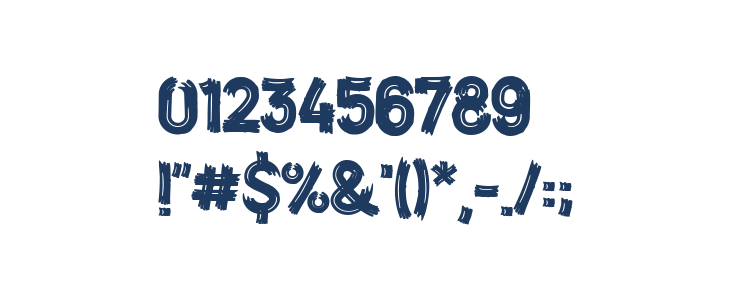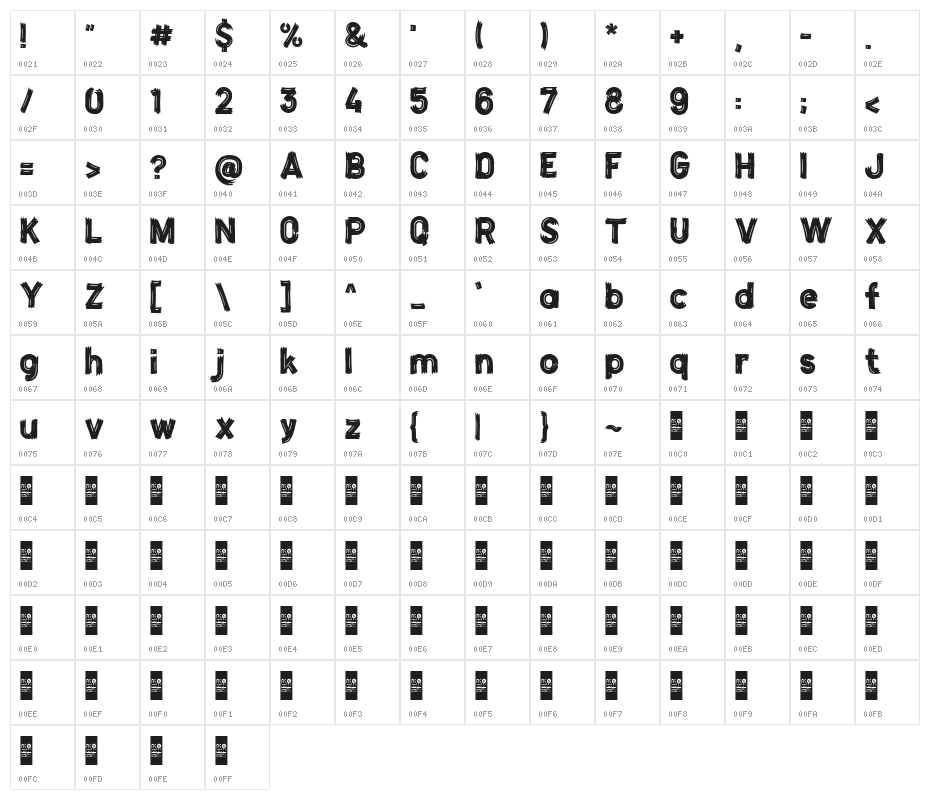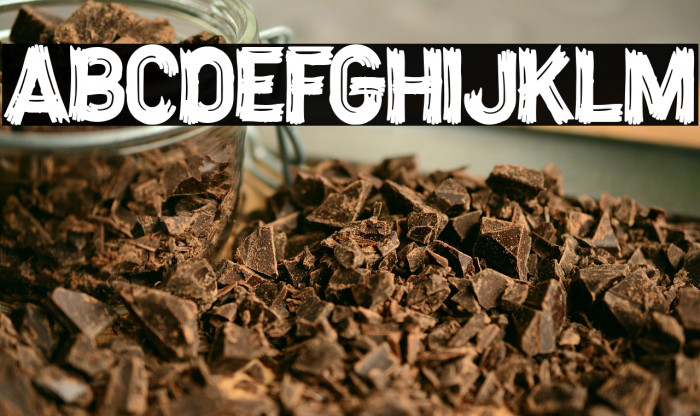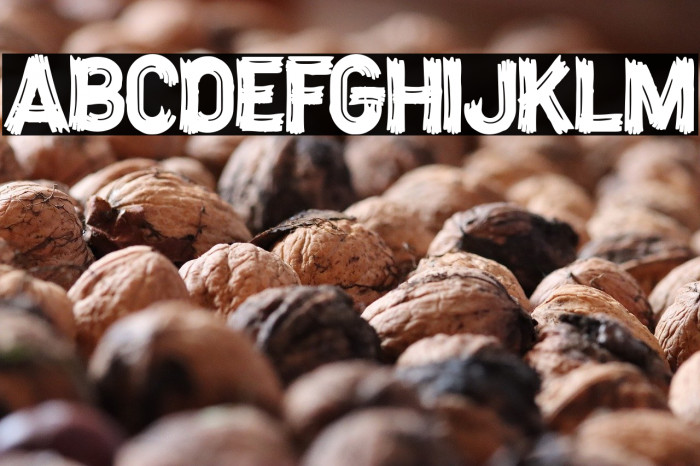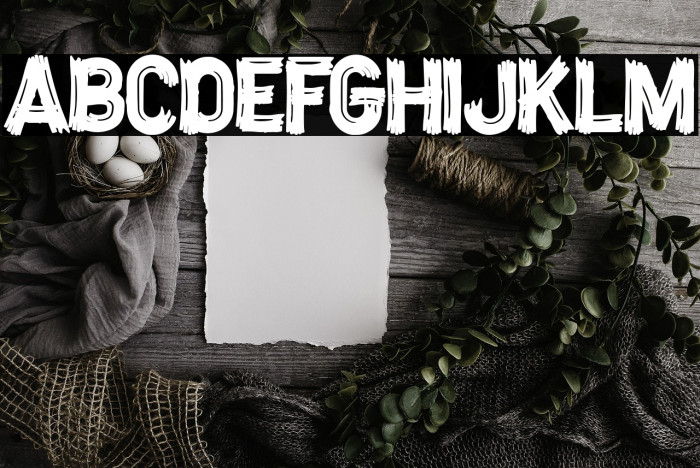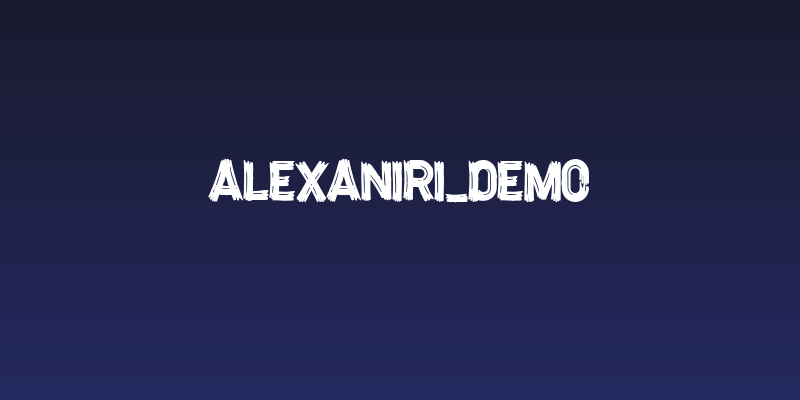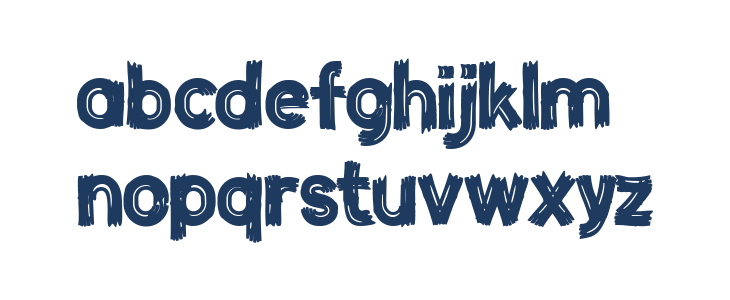
Alexaniri_demo Font
Alexaniri_demo Description
This font features a bold and expressive style with a hand-drawn, brush-like appearance. The strokes are uneven and textured, giving it a dynamic and energetic feel. Each character is distinct, with a playful yet edgy aesthetic that stands out. The uppercase and lowercase letters maintain a consistent style, while the numbers and special characters complement the overall design. This font is ideal for projects that require a bold statement and a creative touch.
| Proposed Projects | Perfect for posters, album covers, branding, and any creative projects that require a bold and artistic touch. |